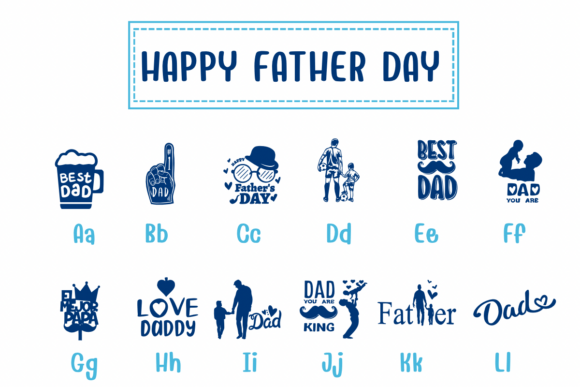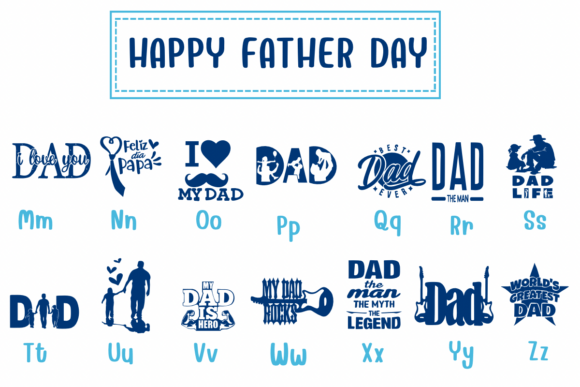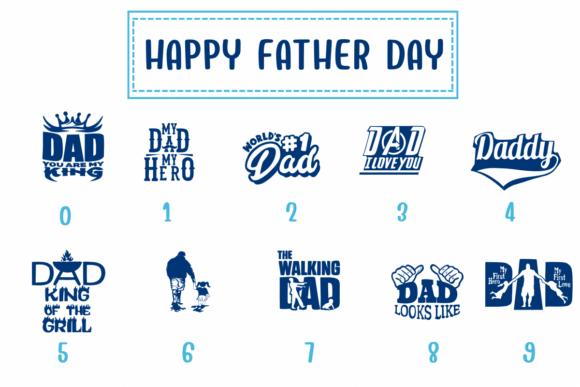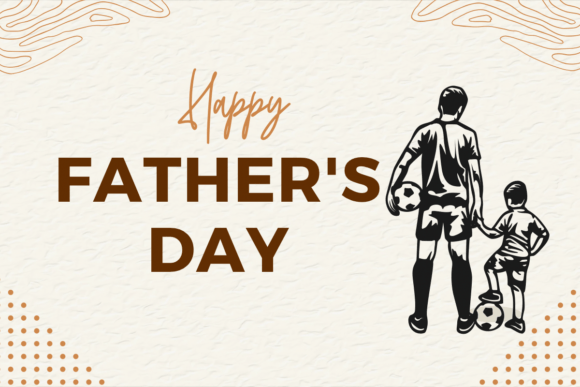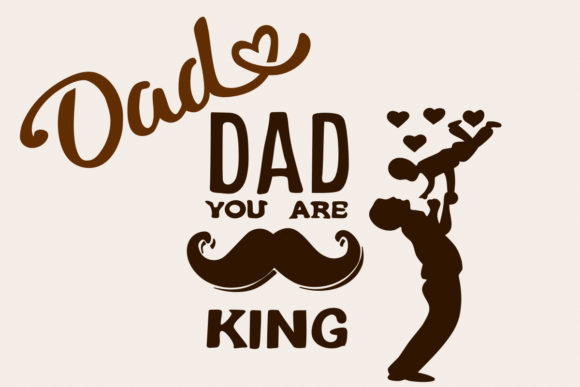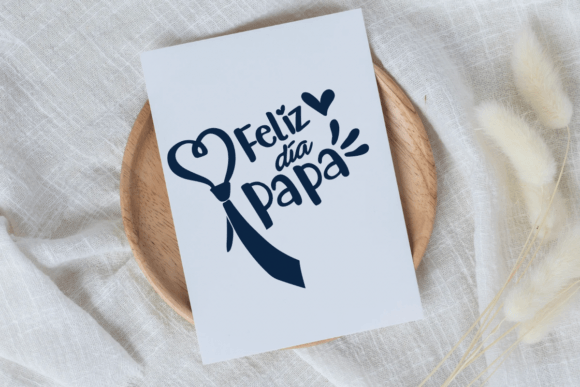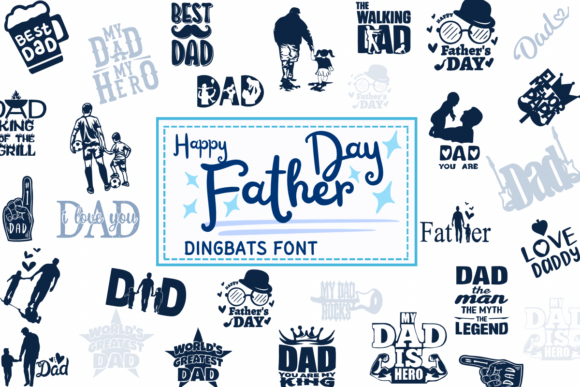
Happy Father Day Font: The Perfect Addition to Your Father’s Day Projects
Are you looking for a unique and creative way to express your love and appreciation for your dad on Father’s Day? Look no further than the Happy Father Day font, a dingbat font specifically designed for Father’s Day projects. This font is perfect for designers, crafters, and anyone looking to add a personal touch to their creative projects.
What is Happy Father Day Font?
Happy Father Day font is a dingbat font that features a collection of Father’s Day-themed characters, including icons, symbols, and illustrations. This font is designed to be used in a variety of creative projects, such as wedding invitations, DIY crafts, decorations, logos, and many other ideas. The font is easy to use and can be installed on your computer or used online.
Benefits of Using Happy Father Day Font
There are several benefits to using Happy Father Day font in your creative projects. Some of the benefits include:
- Unique and Creative Designs: Happy Father Day font offers a wide range of unique and creative characters that can add a personal touch to your projects.
- Customization: You can customize your projects by mixing and matching different characters and symbols to create a unique design.
- Time-Saving: Using a pre-made font can save you time and effort in designing your projects from scratch.
Ideas for Using Happy Father Day Font
Happy Father Day font can be used in a variety of creative projects, including:
- Wedding Invitations: Add a personal touch to your wedding invitations with Happy Father Day font.
- DIY Crafts: Use the font to create custom DIY crafts, such as cards, gift tags, and decorations.
- Decorations: Create custom decorations, such as banners, garlands, and signs, using Happy Father Day font.
- Logos: Use the font to create custom logos for your business or personal projects.
- Social Media Graphics: Create custom social media graphics, such as Facebook posts and Instagram stories, using Happy Father Day font.
Tips and Tricks for Using Happy Father Day Font
Here are some tips and tricks for using Happy Father Day font:
- Experiment with Different Characters: Experiment with different characters and symbols to create a unique design.
- Combine with Other Fonts: Combine Happy Father Day font with other fonts to create a custom look.
- Use in Combination with Images: Use Happy Father Day font in combination with images to create a custom design.
- Customize Your Projects: Customize your projects by adjusting the size, color, and style of the font.
Happy Father Day font is a unique and creative way to add a personal touch to your Father’s Day projects. With its wide range of characters and symbols, ease of use, and customization options, this font is perfect for designers, crafters, and anyone looking to create custom projects. Whether you’re looking to create wedding invitations, DIY crafts, decorations, logos, or social media graphics, Happy Father Day font is the perfect addition to your creative projects.